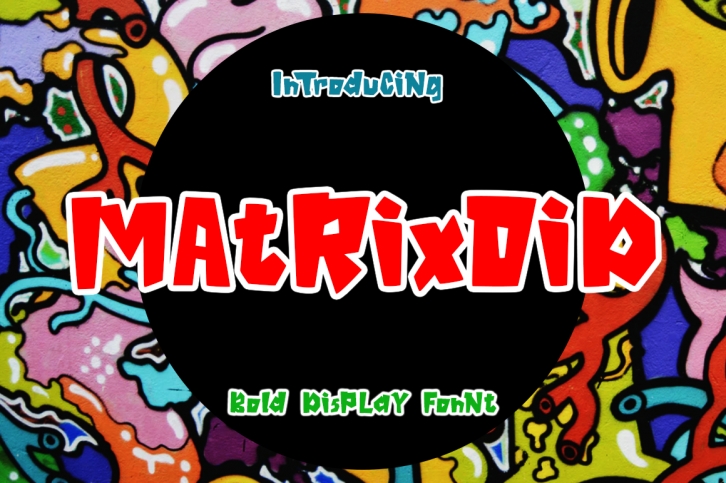
Matrixoid Bold Display is a gorgeous font that was realeased on January 27, 2020. The font can be used in many style contexts and design environments. Perfect for invitations, magazines, websites, logos, and more! It was designed by Haksen and the file size is 9.83 MB. Thanks for checking out this font!